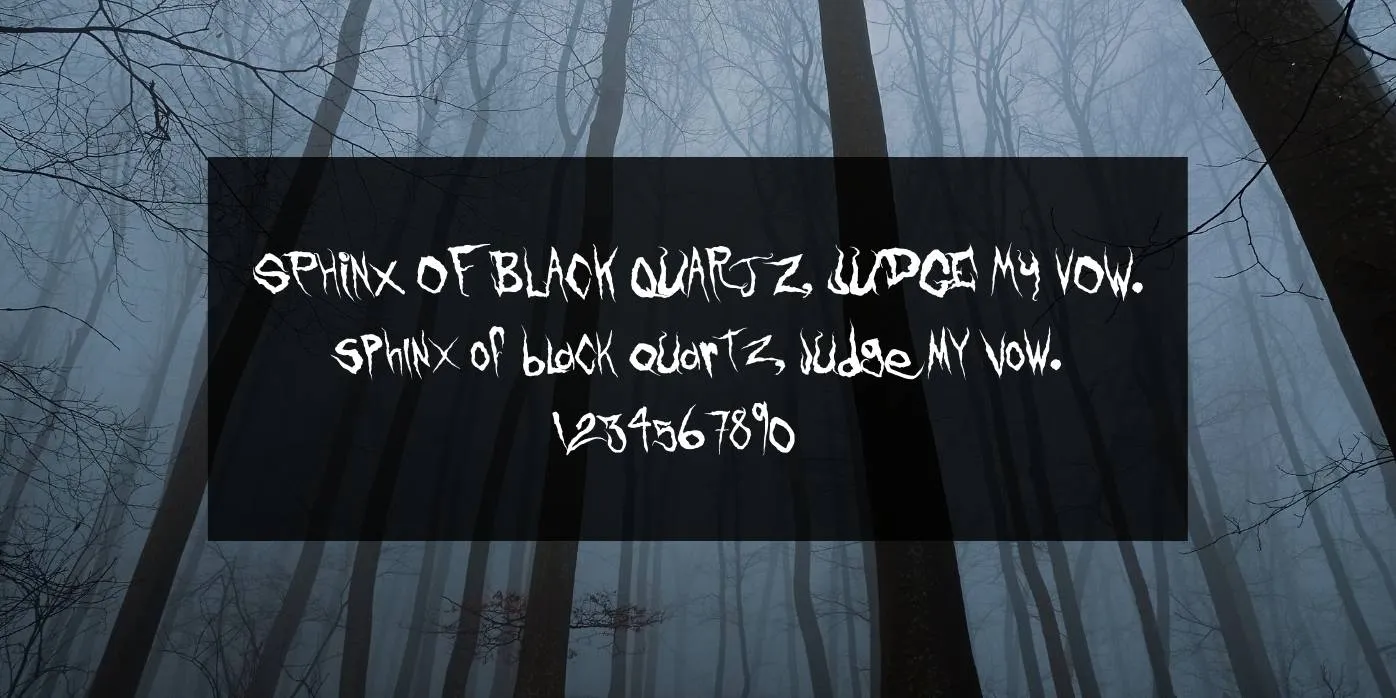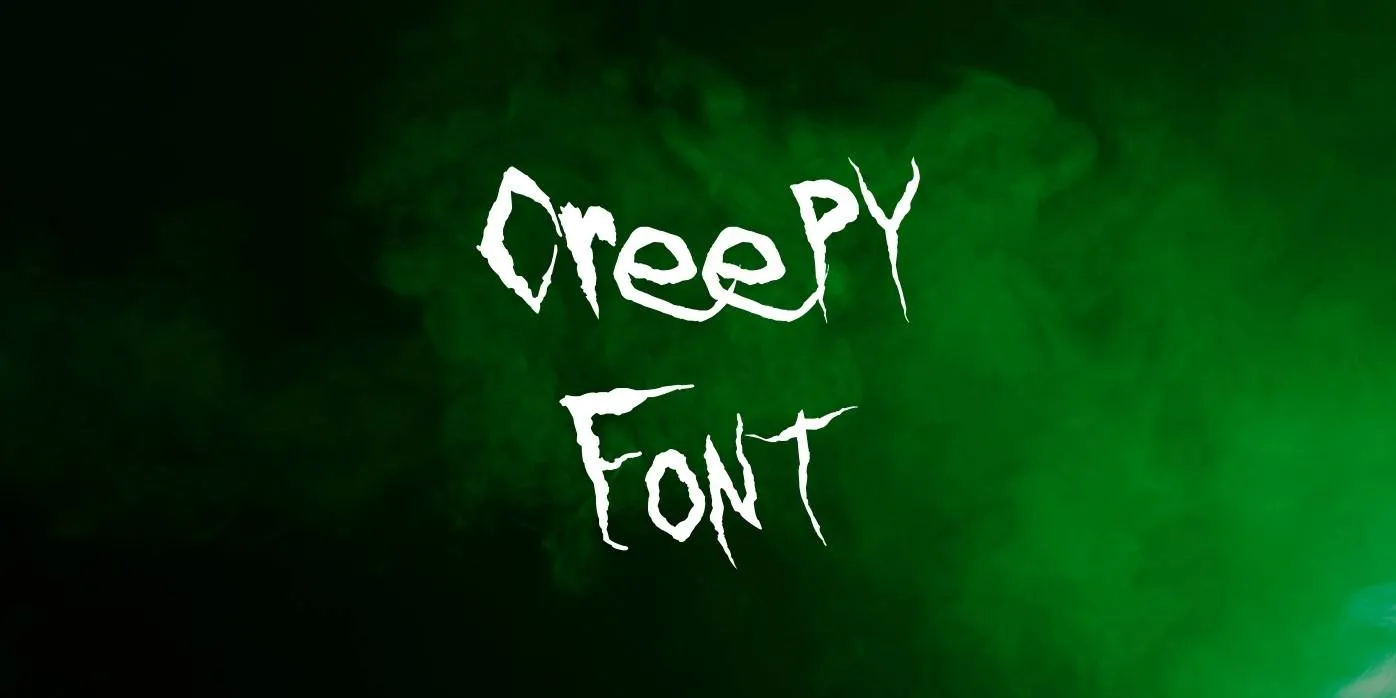
Creepy Font
In this post, we present a modern font that is known by the name Creepy Font. Chris Hansen is the designer of this family. It belongs to the fancy font family. The Creepy family has come into existence with a total of 8 fonts.
This font was introduced on 12th December 2011. The Creepy family is specially designed for headlines, poster making, and t-shirt printing. You can also use its similar obelix pro font for more designs. The characters of this family are very stylish and will surely attract the reader’s attention in the first look itself.
You can also use this typeface for Canva. This font family has eight different styles which include Regular, Slanted, Bold, Expanded, Hollow, Inverse, Shadowed, and 3D. All these styles have their own distinct features. Its copy and paste function is best for text designs.
The Creepy font is available in both uppercase and lowercase characters. It also supports international languages. You can use this font for commercial as well as personal purposes. Its generator tool is perfect for various designs.